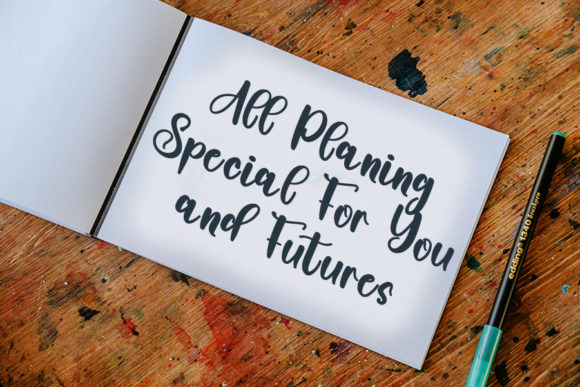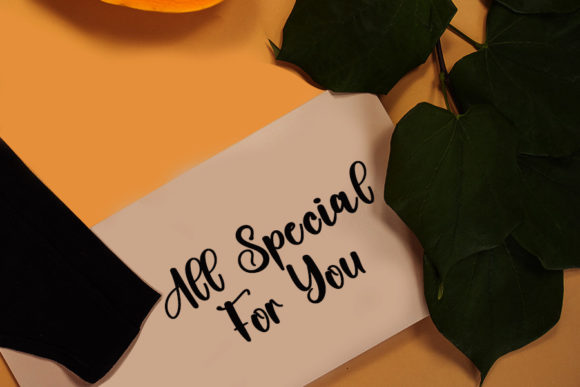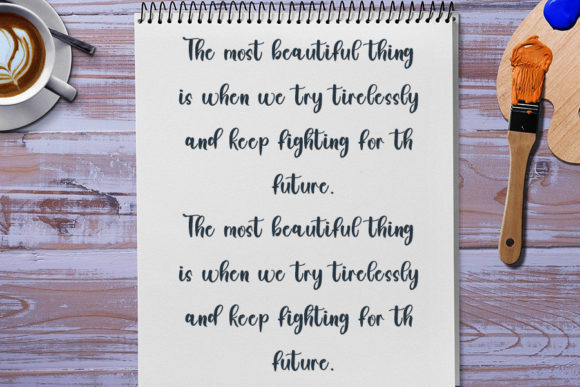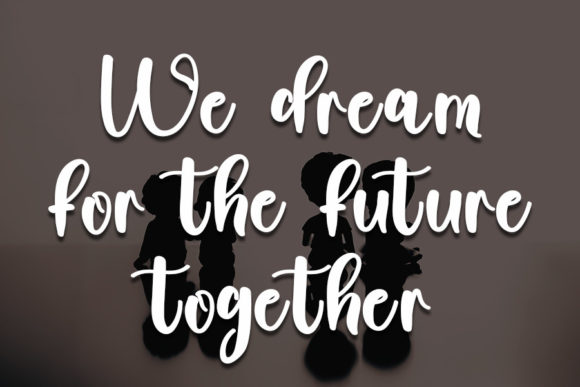
Darlings Font
About Darlings Font
Darlings is a charming and delicate handwritten font that adds a touch of sweetness and elegance to various design projects. With its dainty and joyful appearance, this font is particularly well-suited for creating romantic and personalized pieces that evoke emotions and special occasions.
One of the standout applications for the Darlings font is in wedding invitations. Its delicate and romantic strokes infuse the invitations with an intimate and personal feel, setting the tone for a heartfelt and memorable event. The handwritten quality of the font lends a sense of warmth and connection, making recipients feel cherished and important.
Cards, whether they’re for birthdays, anniversaries, or other celebrations, also benefit from the Darlings font’s sweet and delicate style. The font’s joyful and dainty appearance brings a layer of charm and sentiment to the cards, making the messages even more meaningful. Each handwritten character conveys care and attention, enhancing the emotional impact of your greetings.
The versatility of the Darlings font extends to a variety of design projects. From posters and flyers to social media graphics and art prints, the font’s unique and personalized touch adds a distinct flair. Its playful and whimsical nature can inject a sense of happiness and positivity into different contexts, helping your designs stand out.
The Darlings font’s delicacy and sweetness also make it an excellent choice for DIY and crafting projects. Whether you’re creating handmade decorations, personalized gifts, or scrapbooking layouts, the font’s handwritten charm brings a handmade and heartfelt quality to your creations.
Overall, the Darlings font’s blend of sweetness and delicacy makes it a fantastic choice for a wide range of design endeavors. Its ability to infuse romantic and joyful sentiments into your creations fosters genuine connections and memorable experiences. Whether it’s wedding invitations, cards, posters, or crafts, the Darlings font adds a personal and charming touch to each piece.